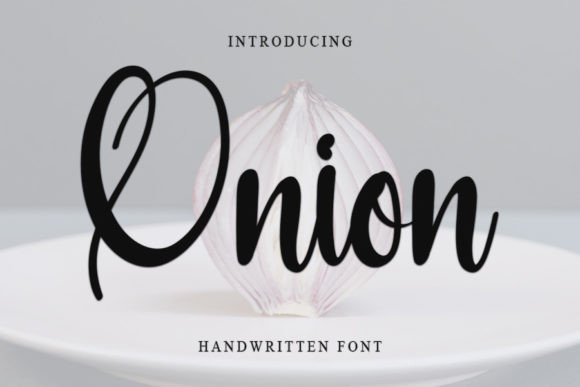
About Onion Font
**Onion: A Neat and Beautiful Handwritten Font with Timeless Elegance**
Onion is a beautifully crafted handwritten font that blends neatness with an elegant touch. This font is an excellent choice for your favorite projects, characterized by its distinct and timeless style that will captivate you. When you use Onion, you’ll find its versatility and sophistication perfect for creating spectacular designs.
The font’s clarity and precision lend your text a clean and organized appearance, making it suitable for various applications. Whether you’re working on invitations, branding, labels, stationery, or any other design project, Onion adds an element of sophistication.
Onion’s elegant script style imbues your text with personality and charm, creating engaging and memorable content. The font’s unique character ensures that your designs stand out while maintaining a sense of timelessness.
One of the notable strengths of Onion is its versatility. It seamlessly adapts to different design contexts, making it a dependable choice for a variety of projects. Whether you need a font that conveys professionalism, creativity, or a touch of elegance, Onion delivers on all fronts.
In summary, Onion is a neat and beautiful handwritten font that seamlessly combines elegance and timelessness. Its distinctive style and adaptability make it an excellent choice for a wide range of design projects where you want to infuse sophistication. Select Onion to elevate your designs and make them truly spectacular.